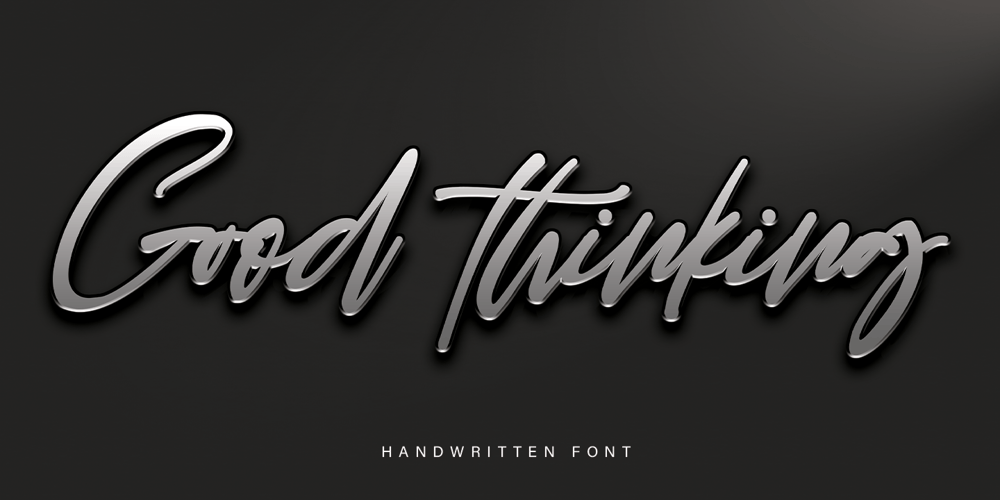
Good Thinking Font Family was designed by Thomas Aradea and published by Letterara. Good Thinking contains 2 styles and family package options. Good Thinking is a beautifully designed handwritten font that’s both authentic and charming. Use it to turn any design project into a true standout!